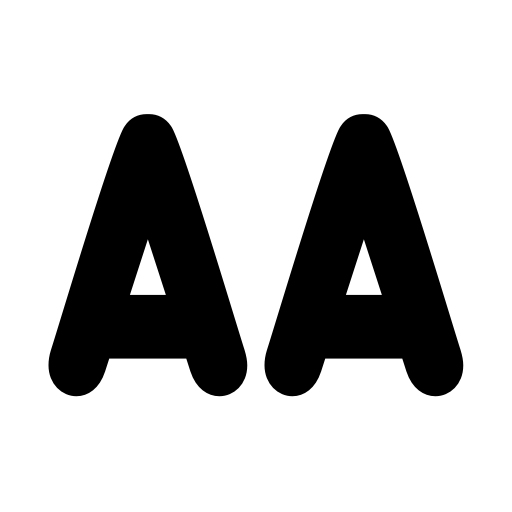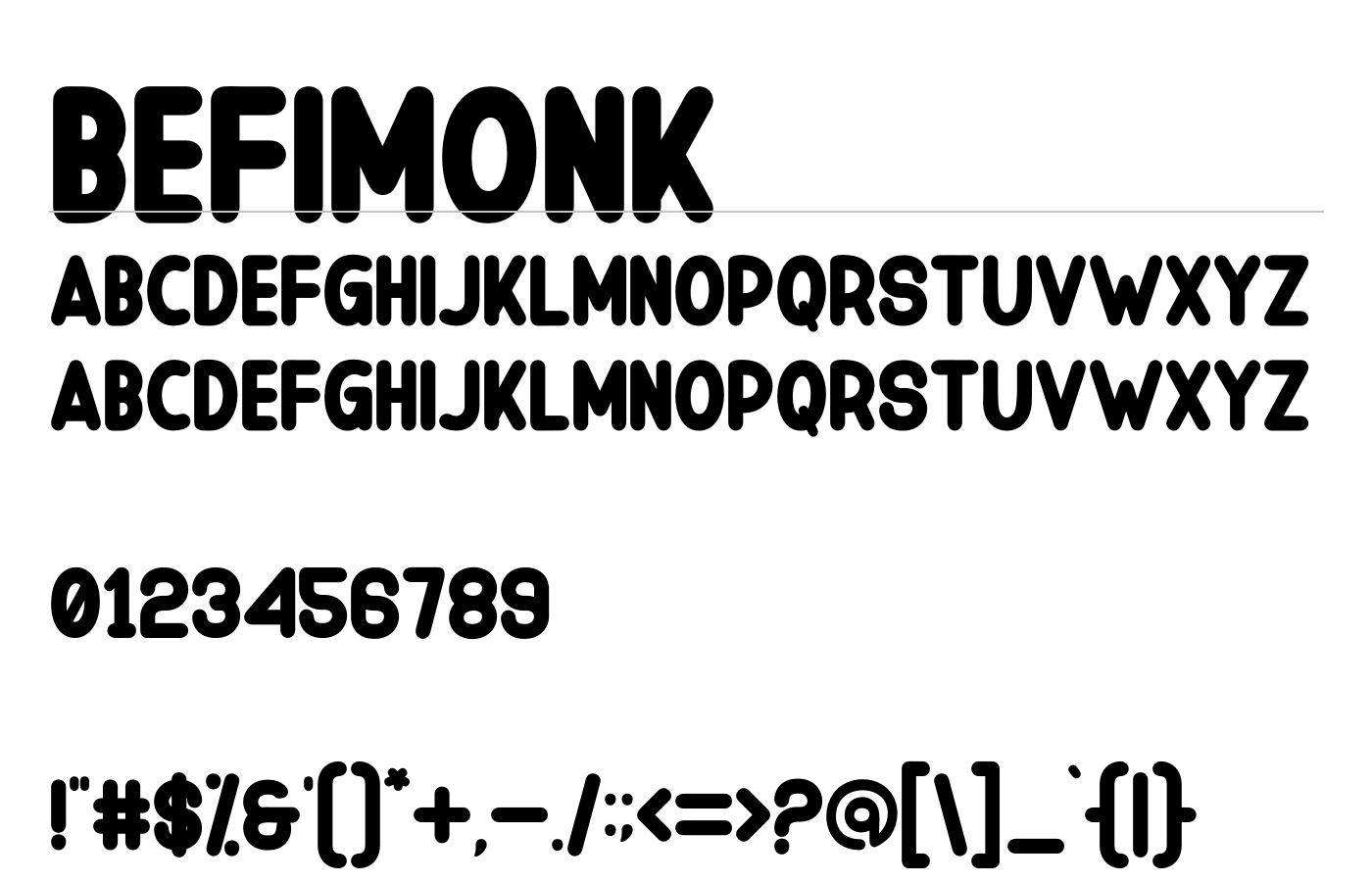
Befimonk is a bold, rounded sans-serif font with a playful and friendly character. Its thick strokes and smooth curves give it an approachable, modern feel perfect for casual or fun branding, children’s materials, and eye-catching headlines. This font works well where a strong yet warm and informal impression is needed, making it ideal for logos, posters, and creative packaging.
Befimonk Font
About Befimonk Font
| Font family | Befimonk Font |